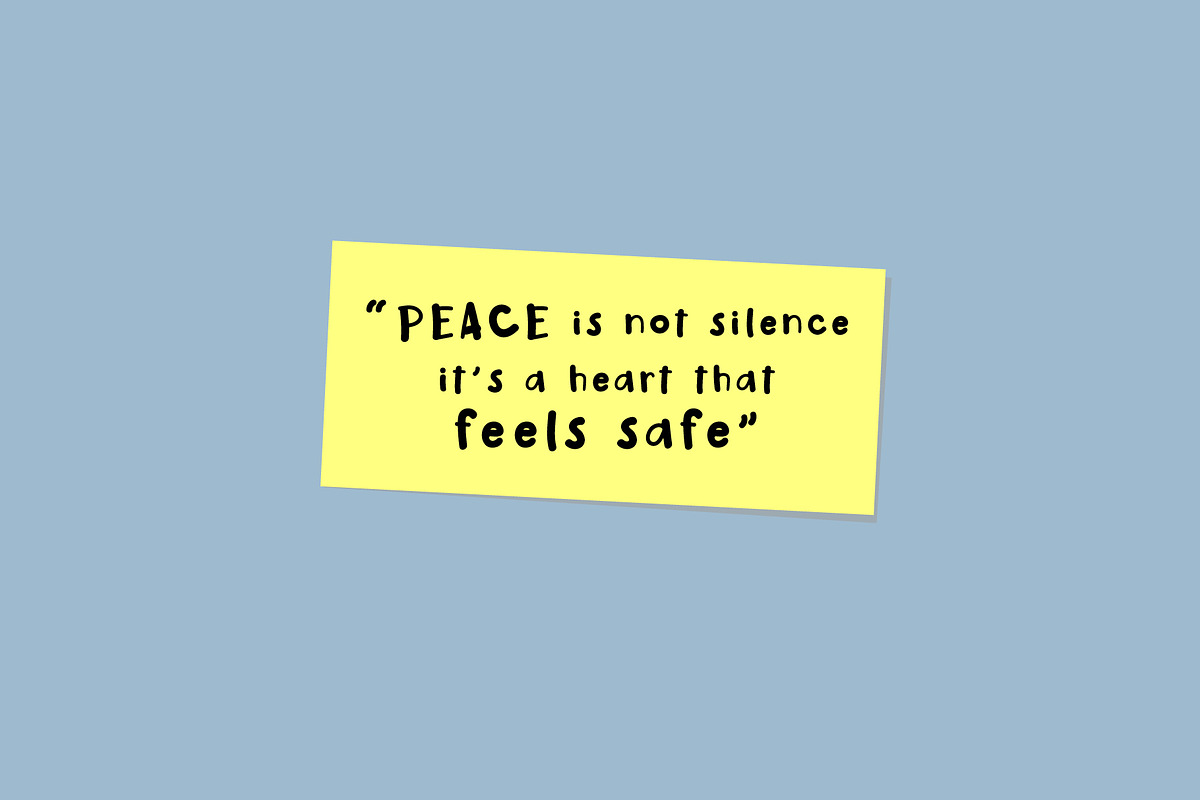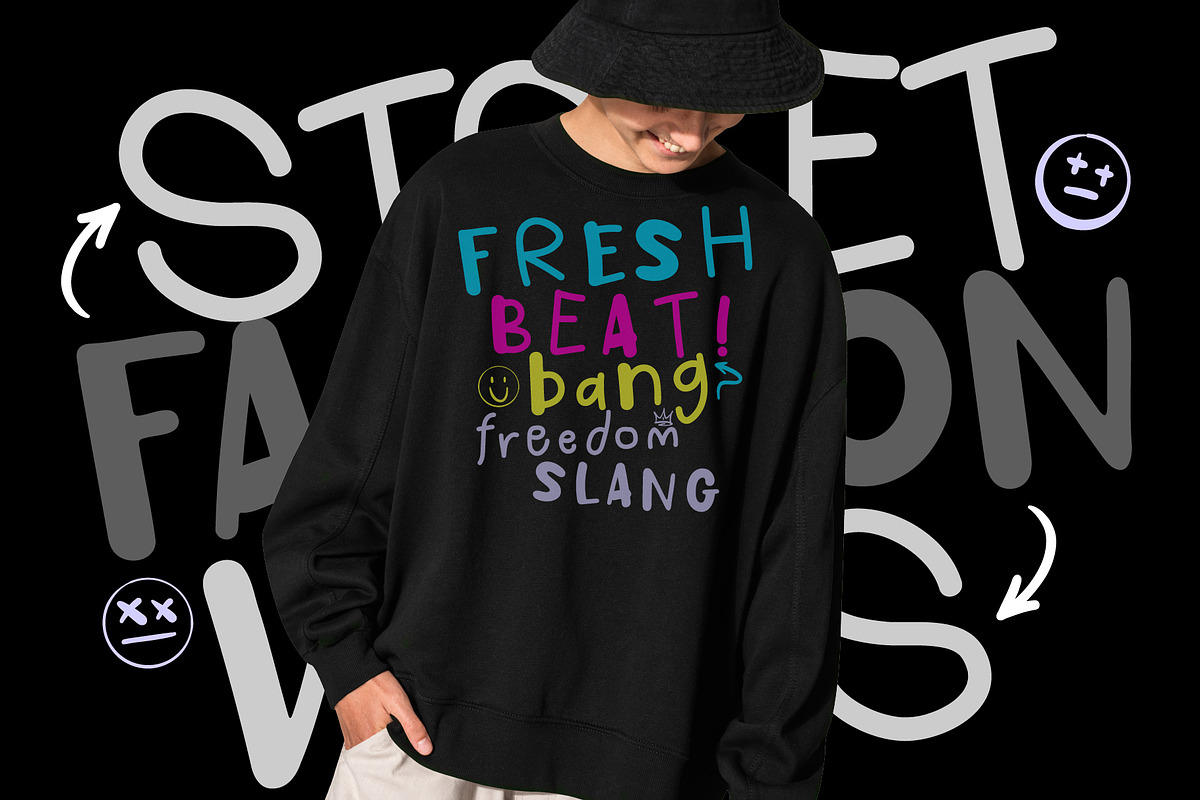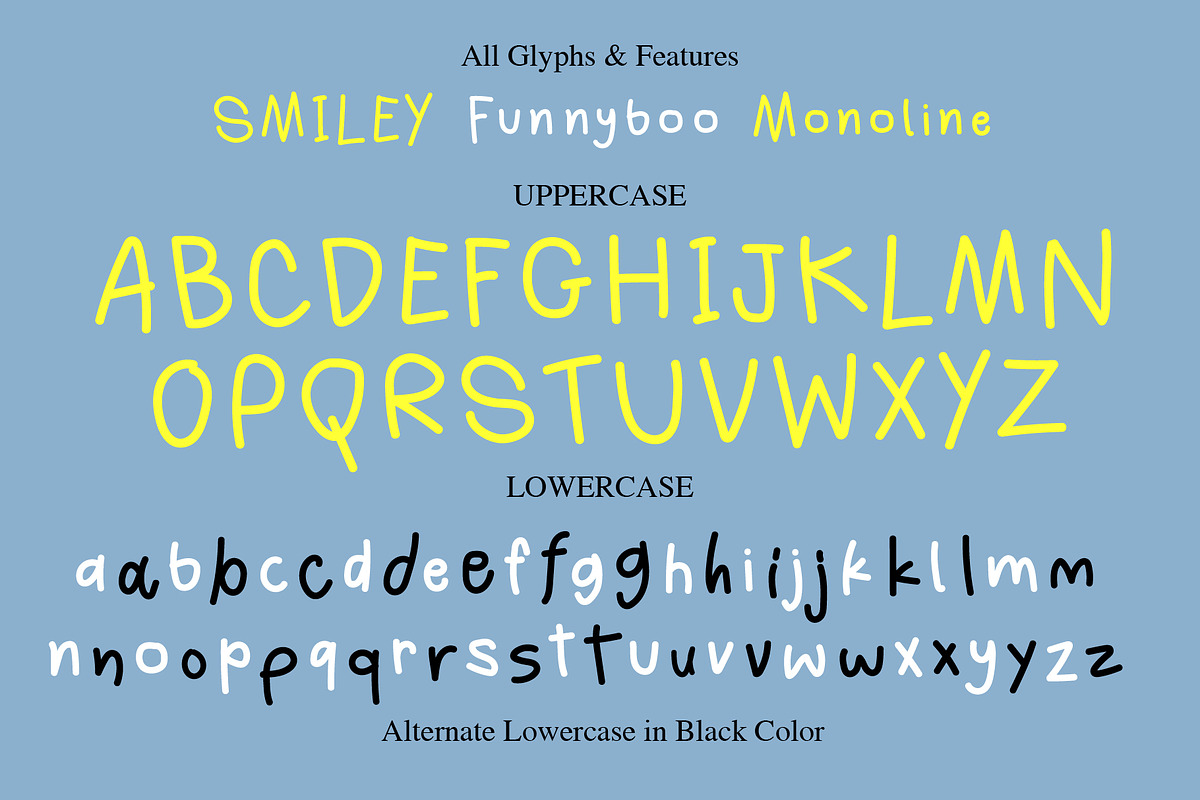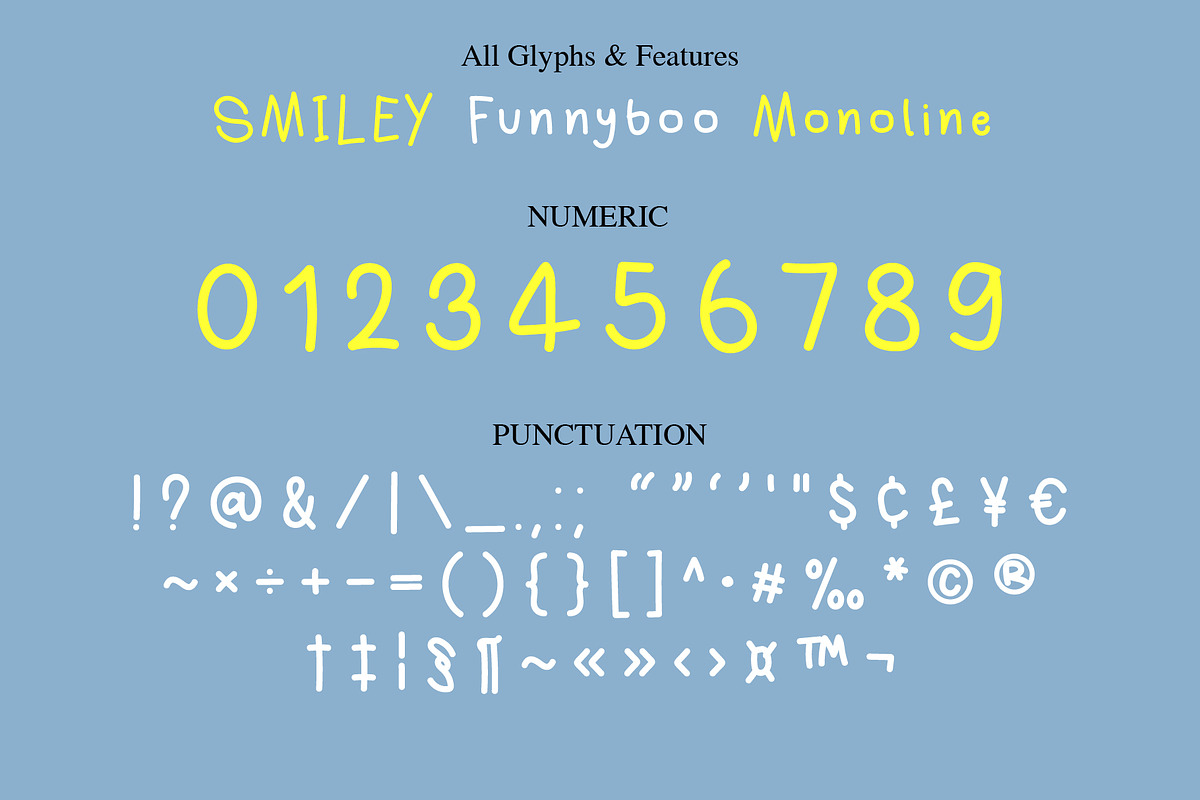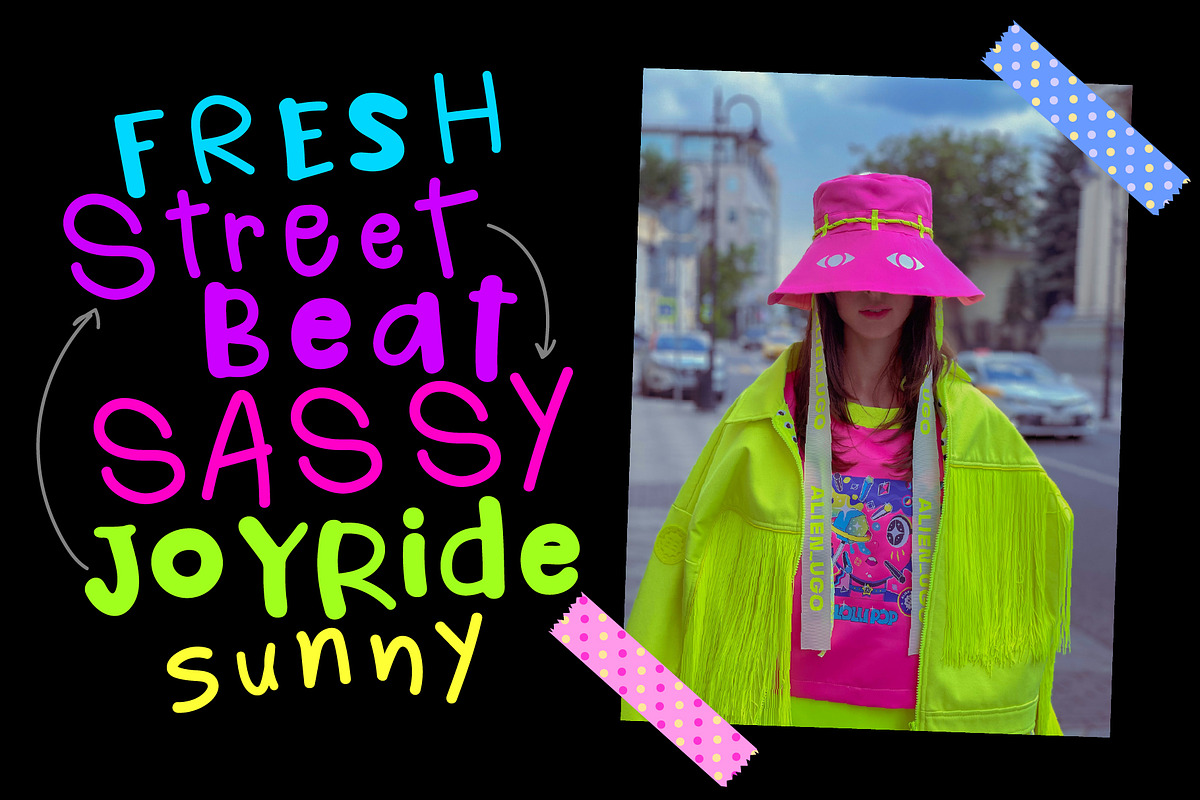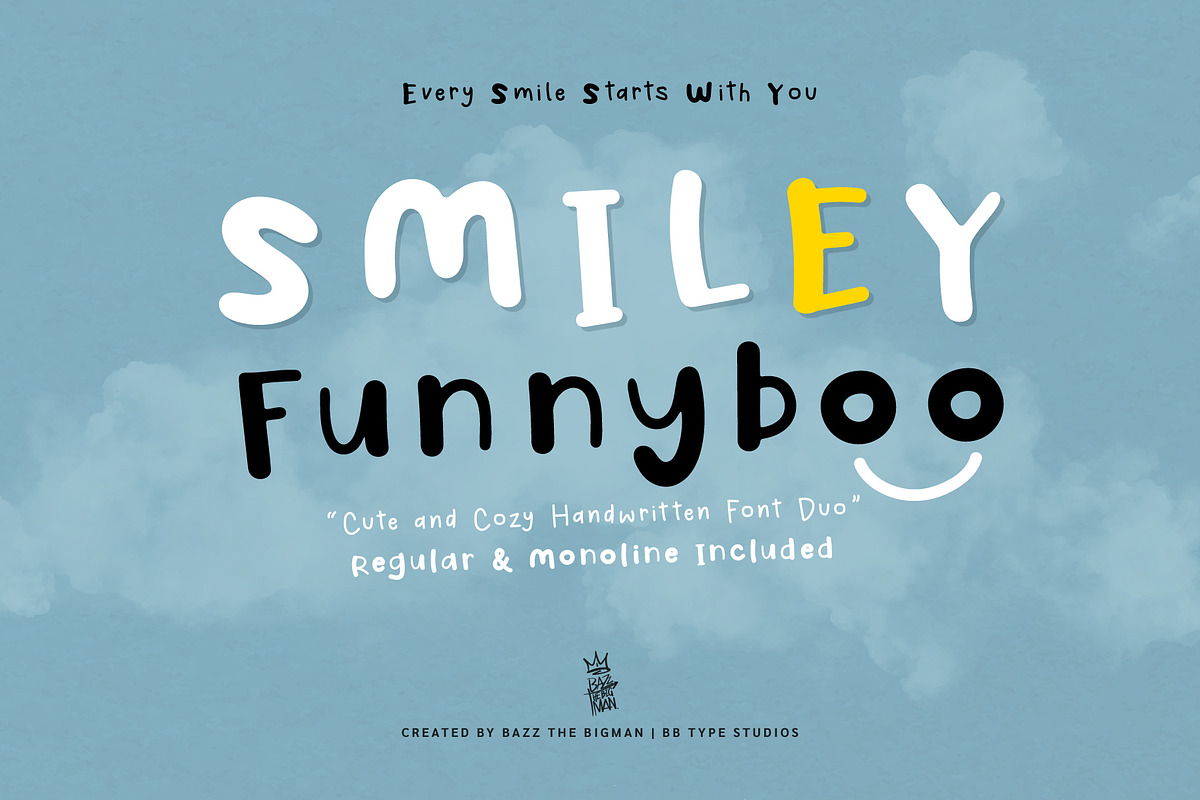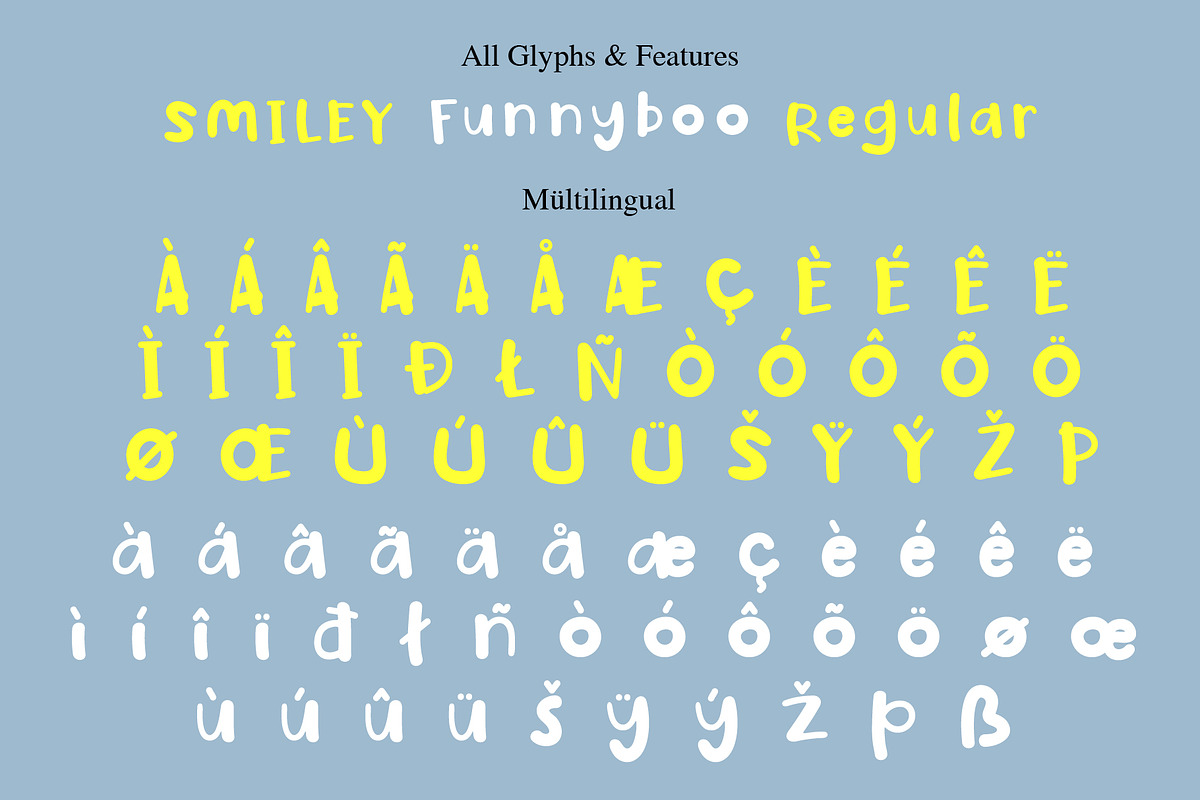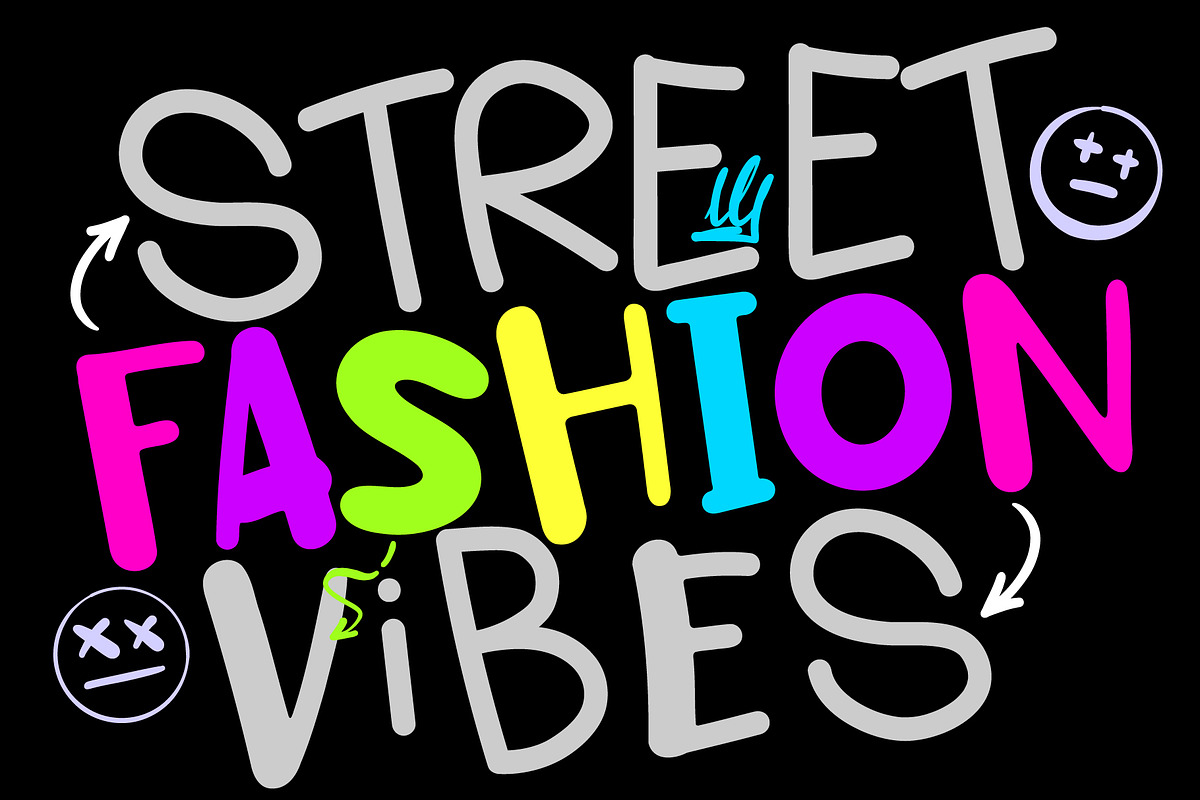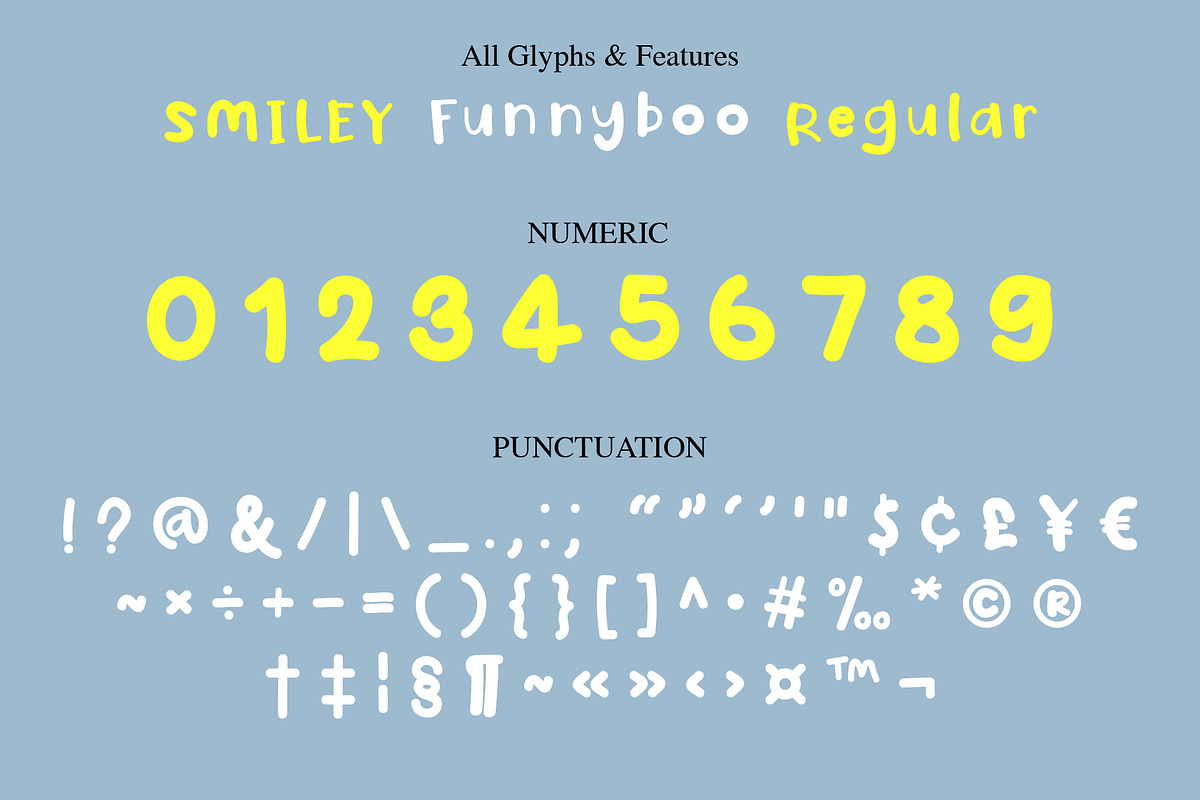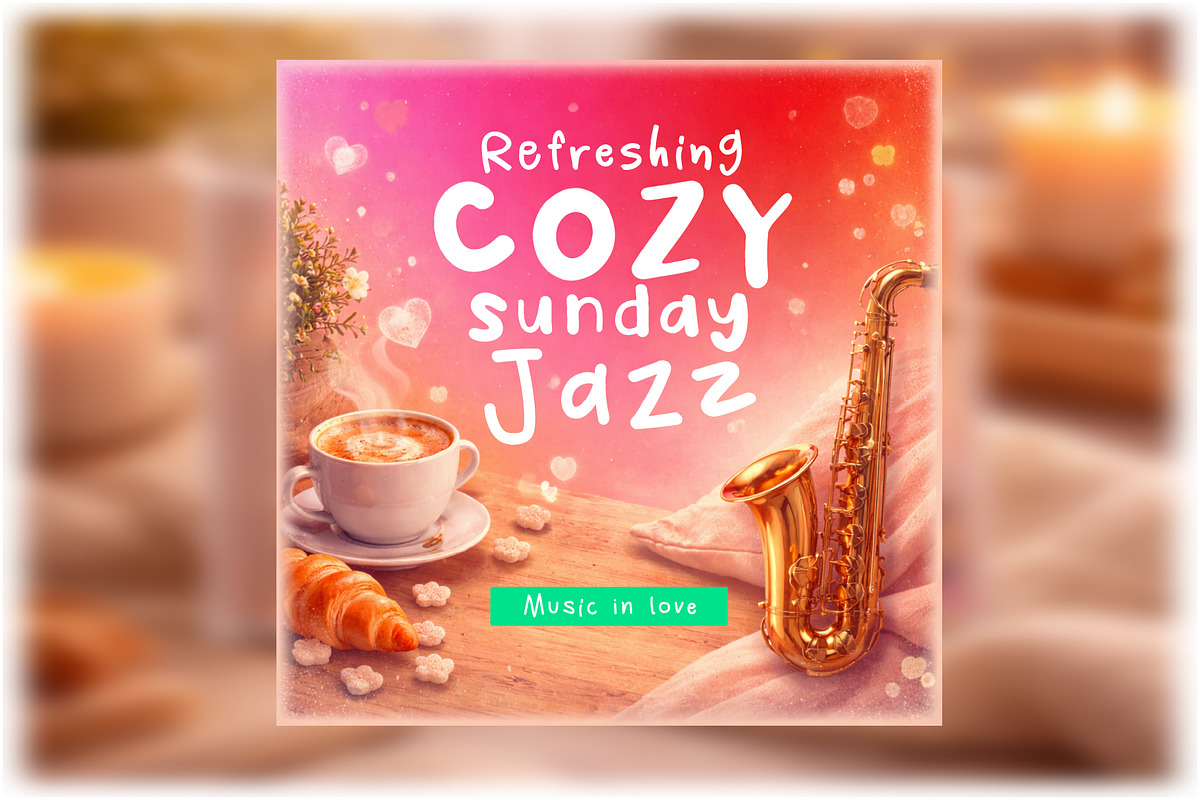
Smiley Funnyboo
Introducing Smiley Funnyboo, an utterly delightful handwritten font duo that infuses your designs with an irresistible blend of warmth, joy, and unique personality. Crafted in two equally captivating styles, a whimsical regular and a delicate monoline, it offers the ideal balance between creative fun and elegant simplicity. Smiley Funnyboo's congenial shapes echo the authentic appeal of penmanship, making it an excellent choice for a myriad of uses such as inspiring quotes, distinctive branding, enticing packaging, engaging social media content, striking logos, café menus, children's merchandise, and an array of everyday creative pursuits. The font presents an effortless charm, while maintaining a legible and comfortable reading experience; preserving that intimate handmade touch that adds a special, welcoming aura to your projects. If you're a designer seeking an adorable, yet grown-up font – a seamless blend of softness, warmth, and chic sophistication, then Smiley Funnyboo is your perfect choice.
Make your designs feel happier, softer, and more expressive with Smiley Funnyboo.